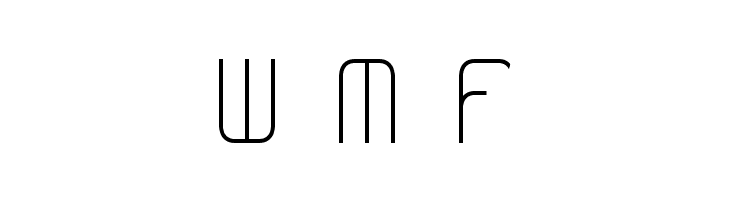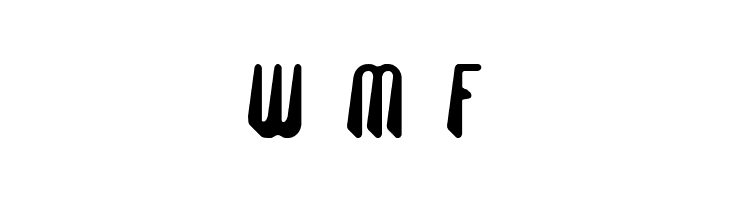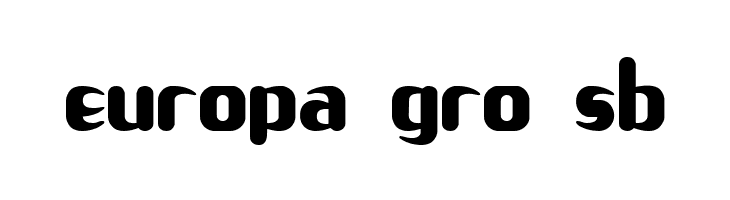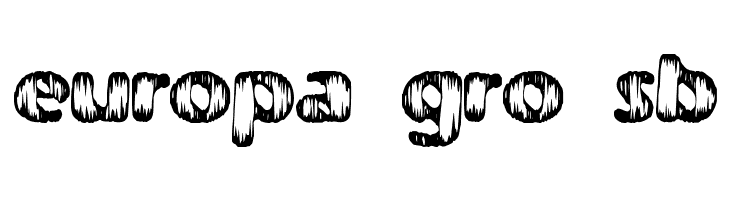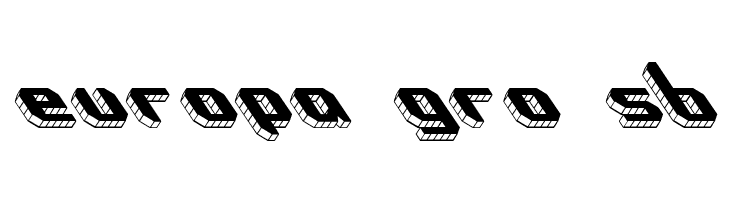
A segmented, geometric outline font with a modern and playful style.
A bold, distressed font with a glitch-like, malfunctioning photocopy appearance.
A bold, decorative font with stars and stripes, inspired by the American flag.
A bold, pixelated font with a futuristic, digital design.
A modern, geometric font with thin, uniform lines and a minimalist style.
A modern, geometric font with clean, rounded edges and uniform stroke width.
A playful, chain-like decorative font with bold outlines and circular patterns.
A bold, decorative font with rounded shapes and dot accents, offering a playful and futuristic look.
A playful, wobbly font with bold, irregular strokes and a hand-drawn feel.
A bold, jagged, and geometric font with an edgy, hand-drawn appearance.
A bold, geometric font with characters enclosed in circles, offering a modern and decorative style.
A futuristic, geometric font with rounded, interconnected letterforms.
A decorative font with a scientific, DNA-inspired design.
A modern, decorative font with interconnected loops and bold strokes.
A bold, playful font with a hand-drawn, sketch-like texture.
A bold, rounded outline font with a modern and playful style.
A geometric, puzzle-like decorative font with interconnected block designs.
A bold, decorative font with thorn-like embellishments and a gothic style.
A bold, playful font with rounded edges and a unique, bubbly appearance.
A bold, outline-style font with a playful and modern aesthetic.
A bold, angular font with a modern, edgy style.
A geometric, linear font with bold, angular lines and a futuristic aesthetic.